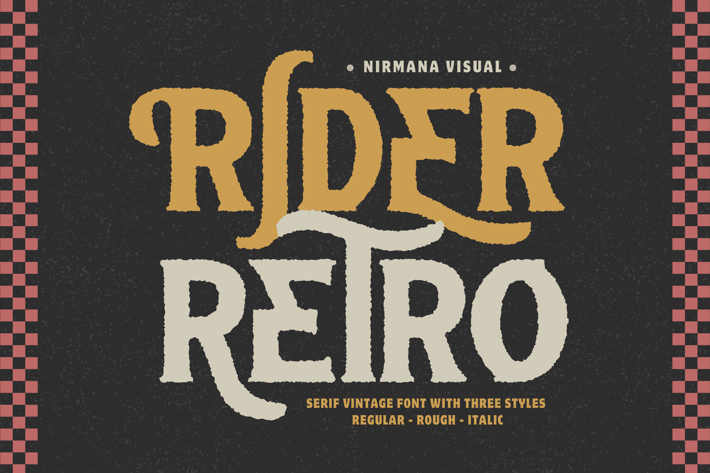
Retro Rider - Branding Logo Font
Retro Rider offers beautiful typographic harmony for a diversity of design projects, including logos & branding, social media posts, advertisements & product designs.